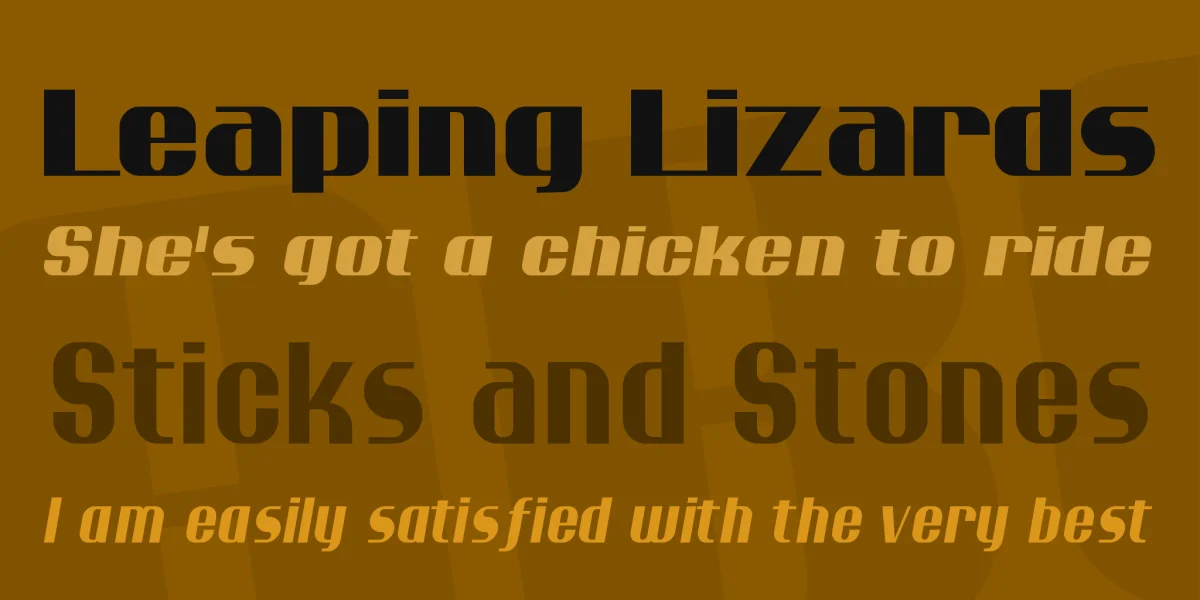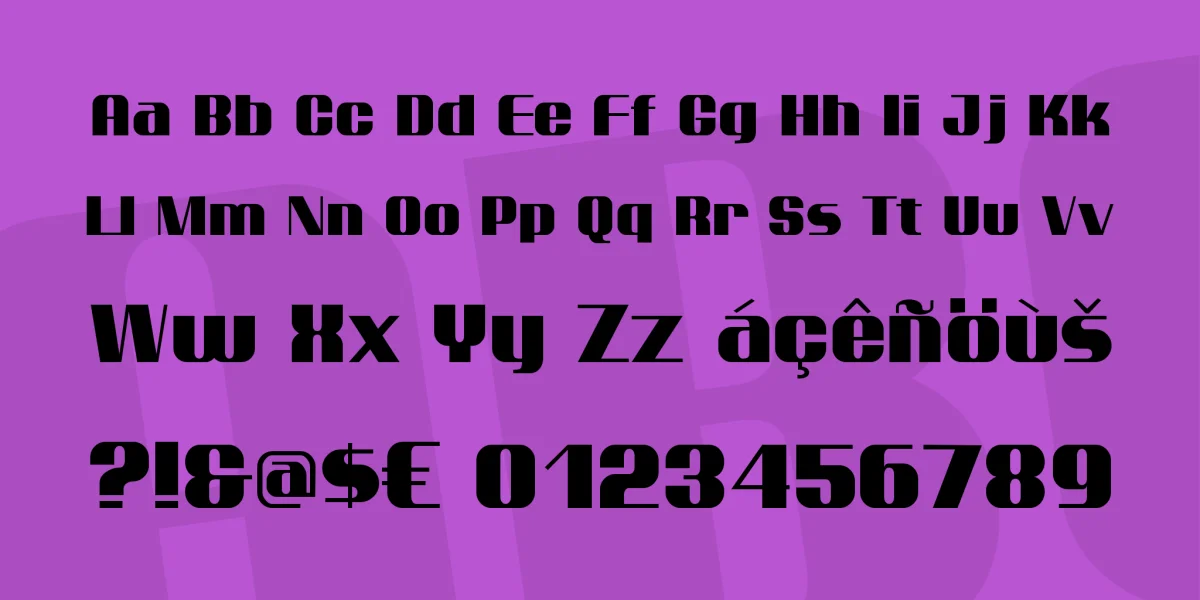
Ptarmigan was based on the lettering I saw on the side of a moving van trailer. It gave me the idea to make a font that was very bold and had minimal whitespace and small counters in the letters.
I don’t know if I achieved the exact effect I was striving toward, but the result was nonetheless very satisfactory. It is surely one of my favorites out of all the fonts I’ve made. It is definitely one of the sleekest of all the fonts I’ve made. And it is also very verastile — you can probably find a use for it somehow. And using all of the styles in conjunction with one another can lead to a nice effect: look at the sample above.
It also has many international characters and a bunch of symbols in each variation, which is always a plus.